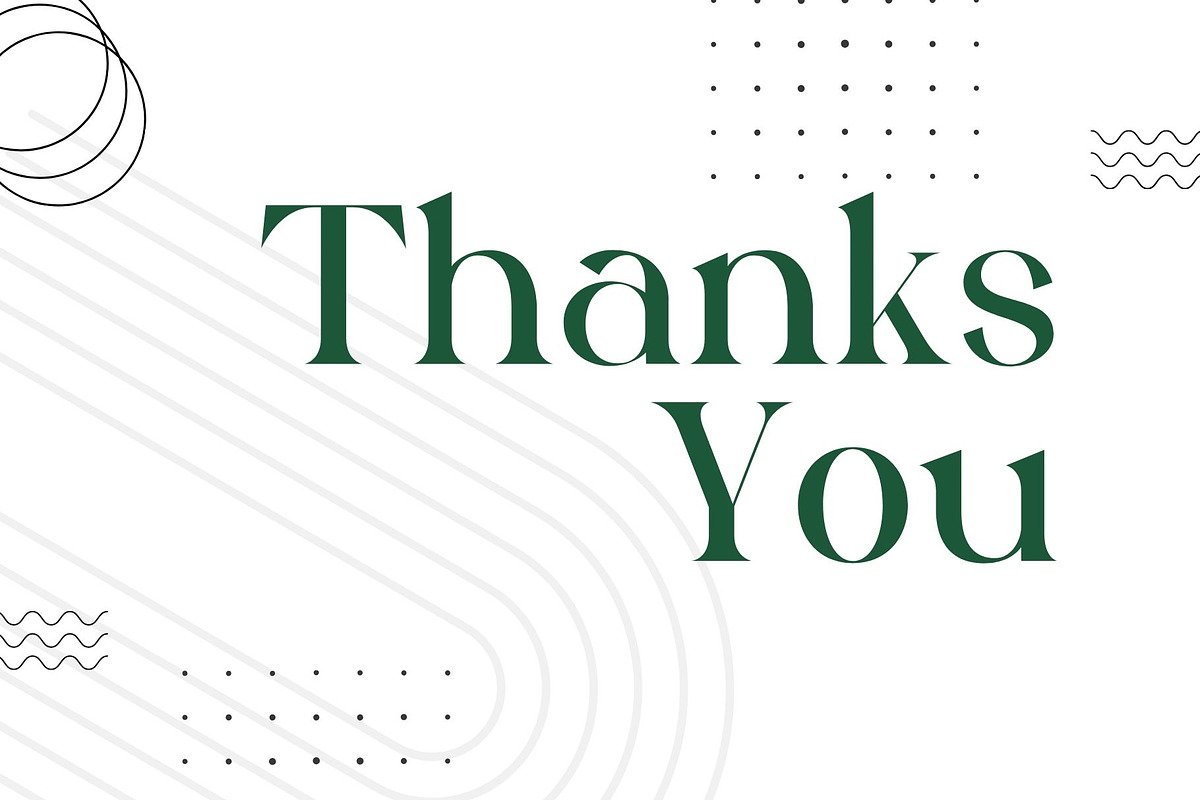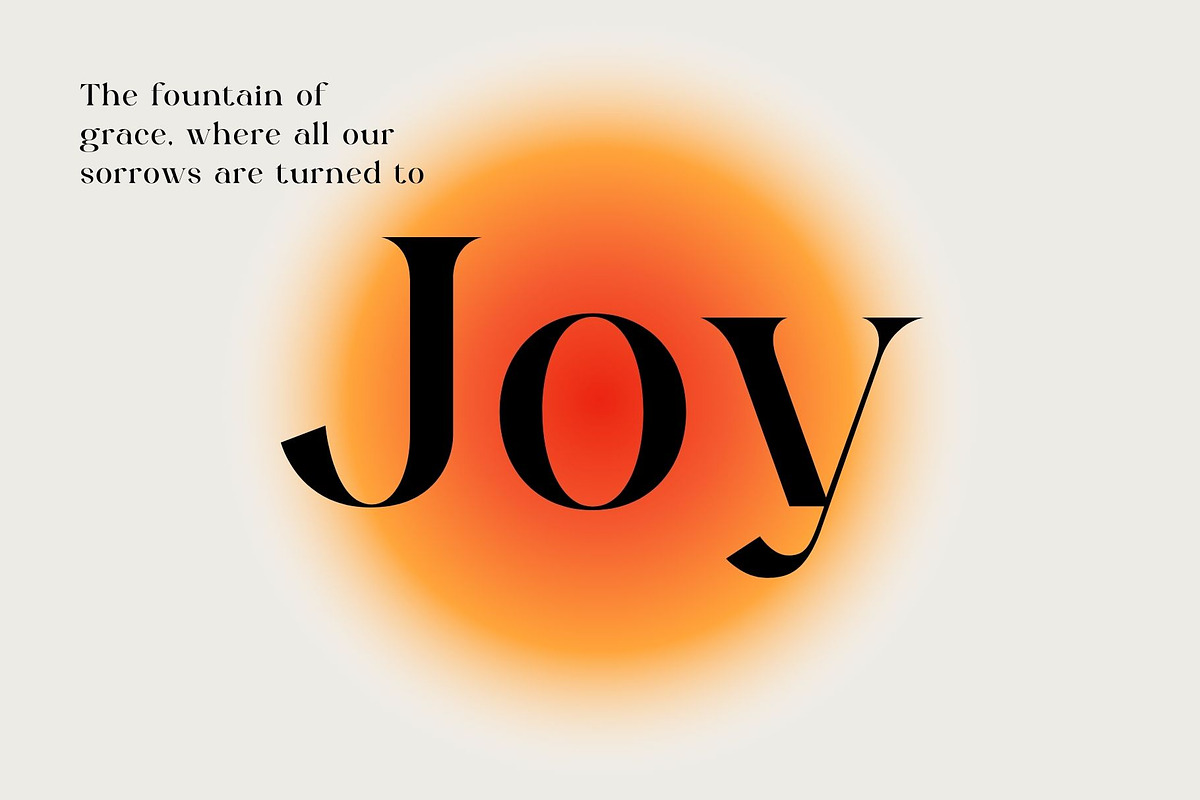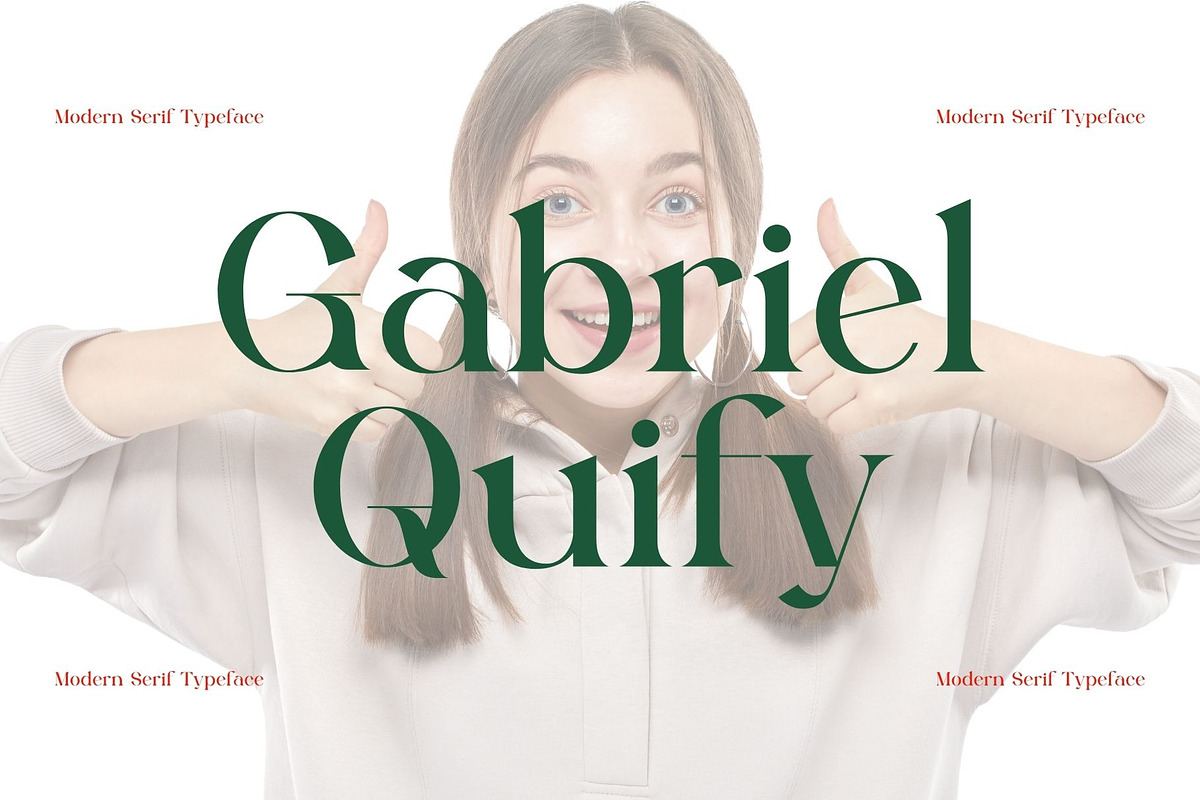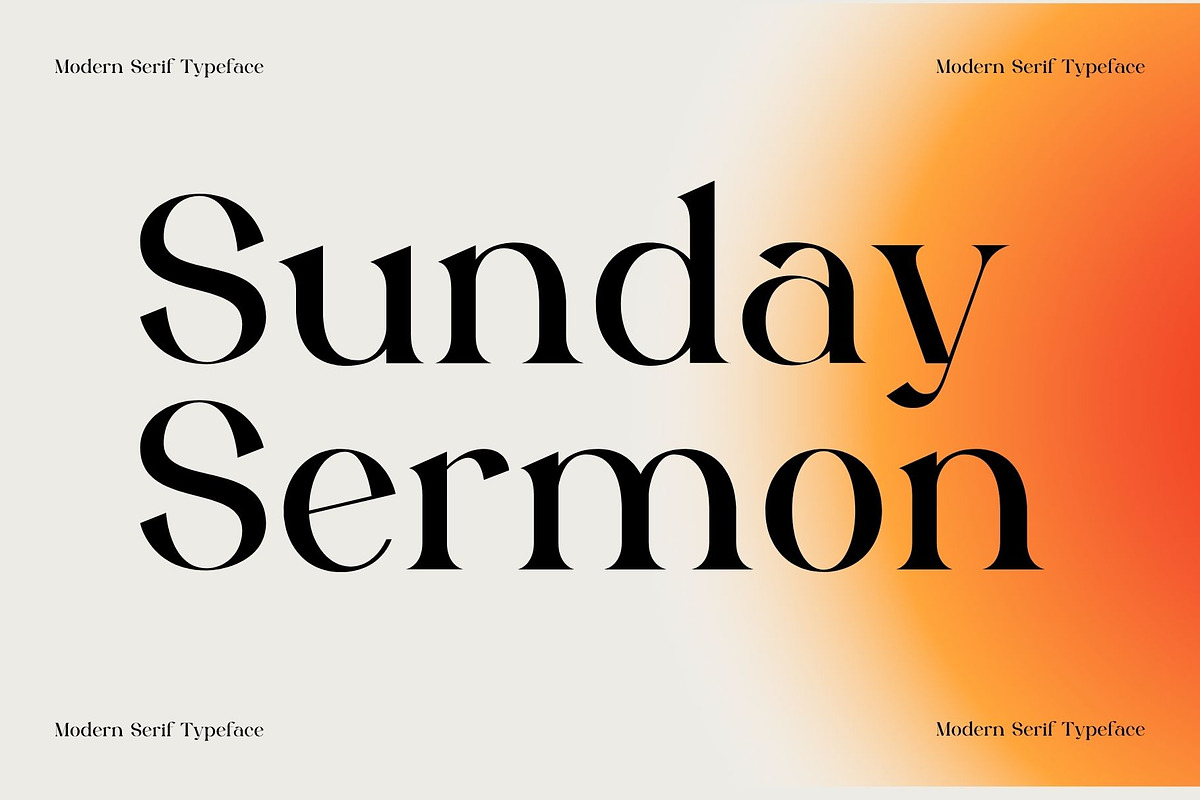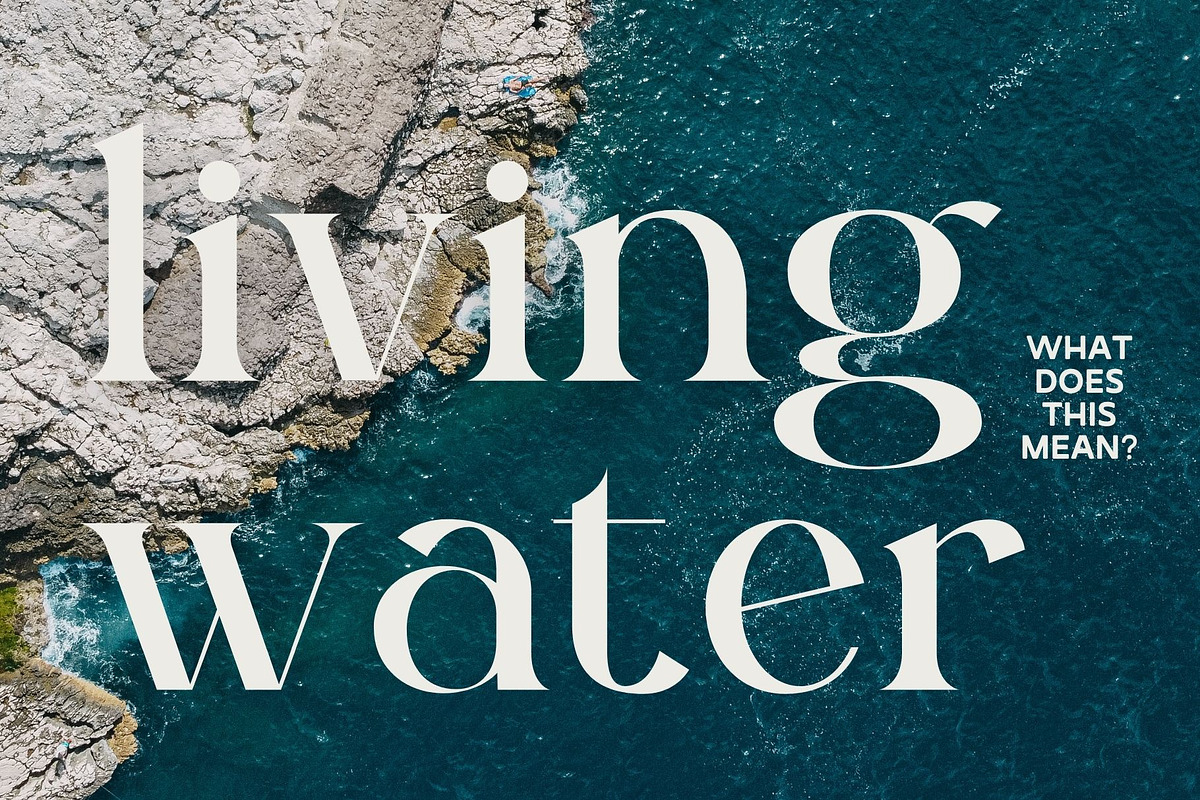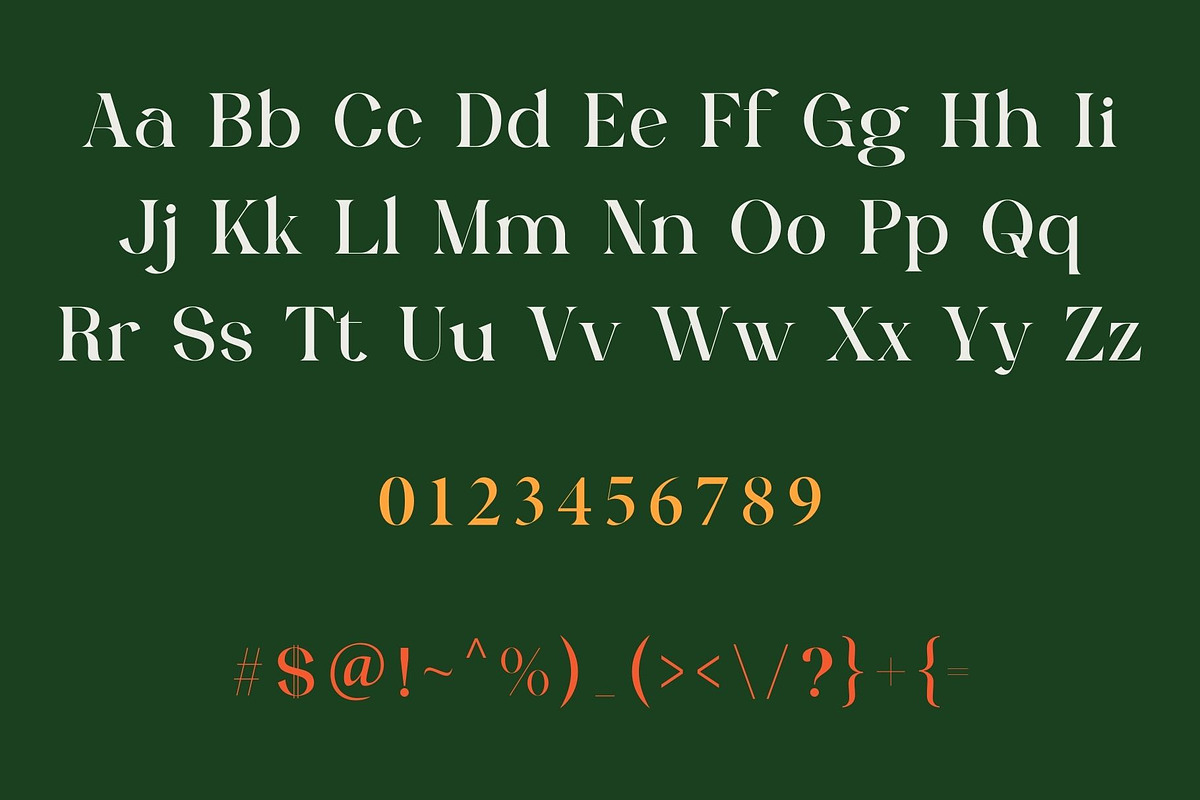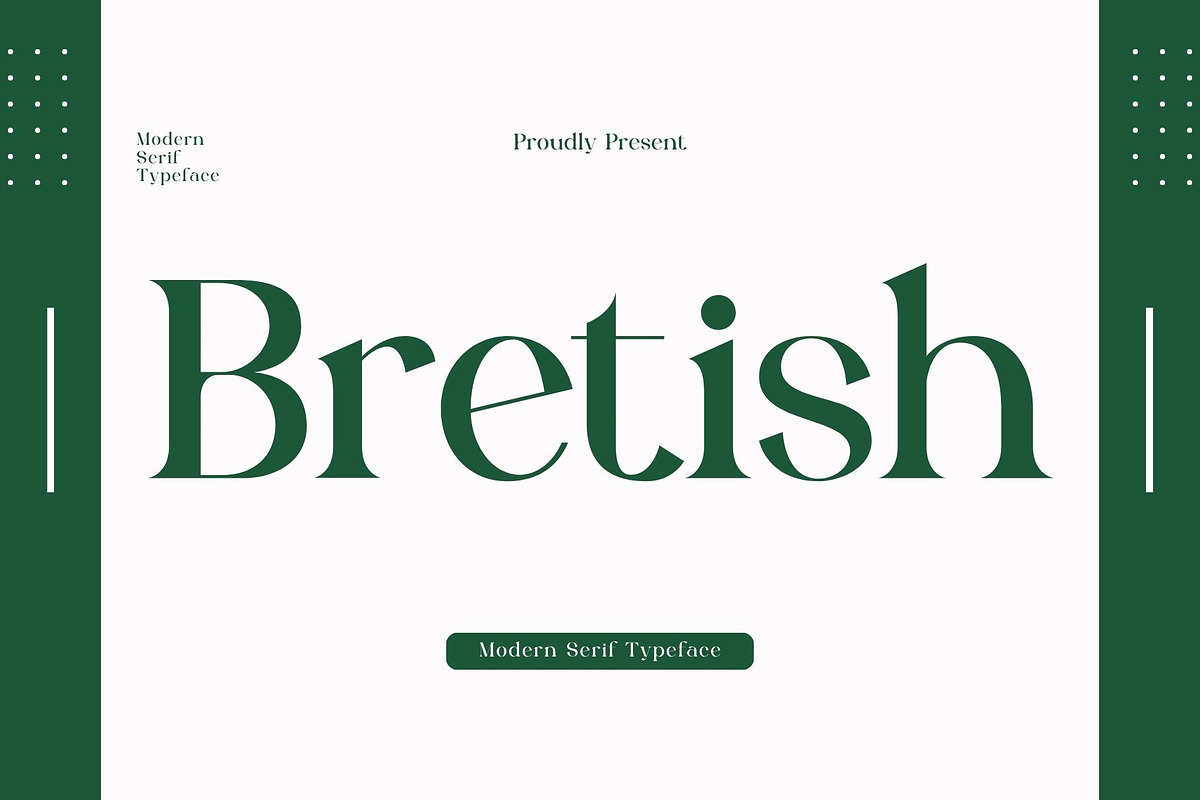
Bretish - Modern Serif Typeface
Introducing 'Bretish' Font:
An exquisite font series designed to elevate your creative projects. Immerse yourself in the allure of meticulously crafted letters that strike the perfect balance between modernity and elegance. Our commitment to precision shines through in the creation of each letter, prioritizing immaculate design to guarantee a flawless typographic expression.
Ideal for:
- Modern Designs
- Beauty and Fashion
- Elegant Creations
- Luxury Apparel
- Ready for Creative Expression
- Immaculately Crafted Letters